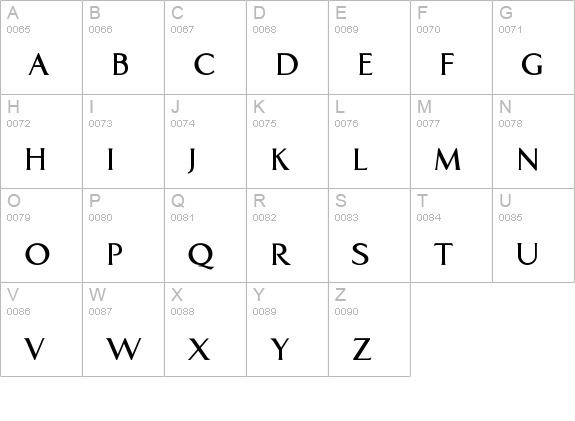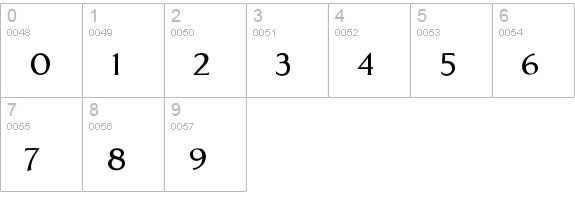
Aperto Bold is a strong, high-contrast variant in the Aperto typeface family \xE2\x80\x94 well suited to headlines, attention-grabbing titles, and strong calls-to-action.
Aperto Bold is a striking and impactful typeface that exudes confidence and modernity. Its bold and clean lines make it perfect for headlines, titles, and other prominent text elements. With its strong presence and legibility, Aperto Bold commands attention and ensures your message is delivered with clarity and style. What's even better is that Aperto Bold is available for free download at FontsMarket.com. This means you can easily access this high-quality font to elevate your designs without any cost. Whether you're working on branding materials, posters, or digital projects, Aperto Bold is a versatile choice that will make your text stand out. Don't miss the opportunity to enhance your design work with this free, eye-catching font.